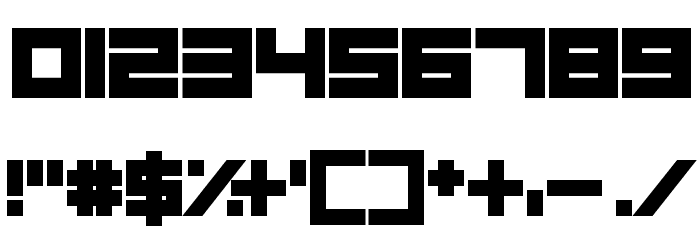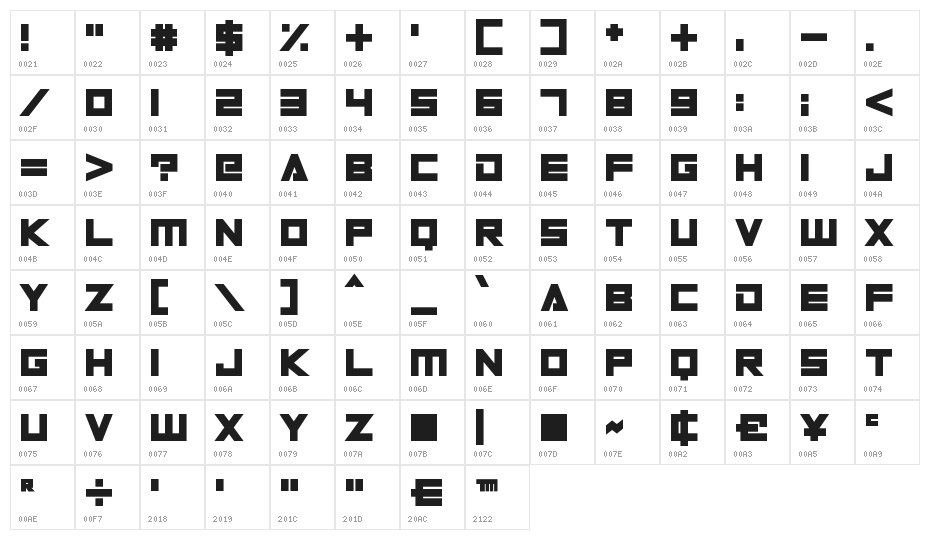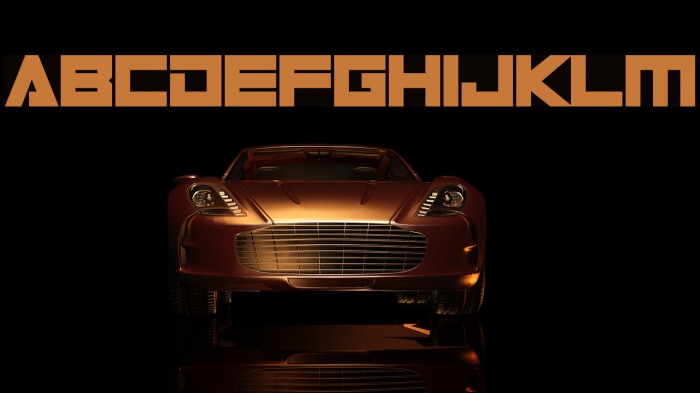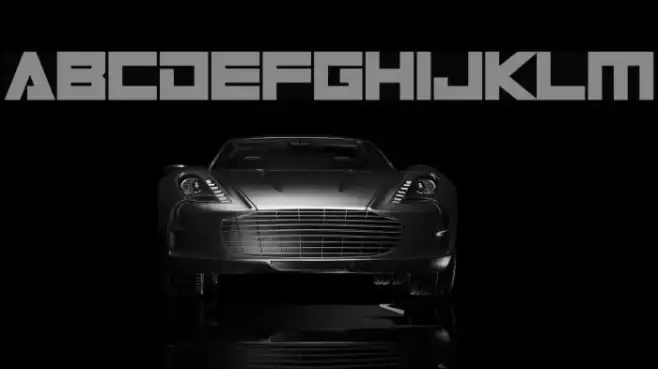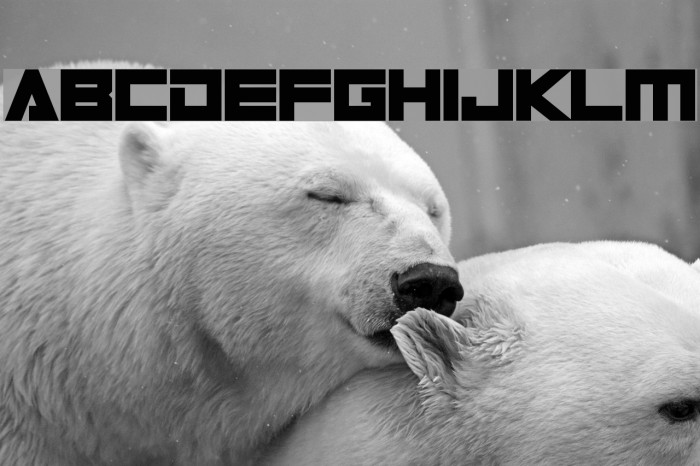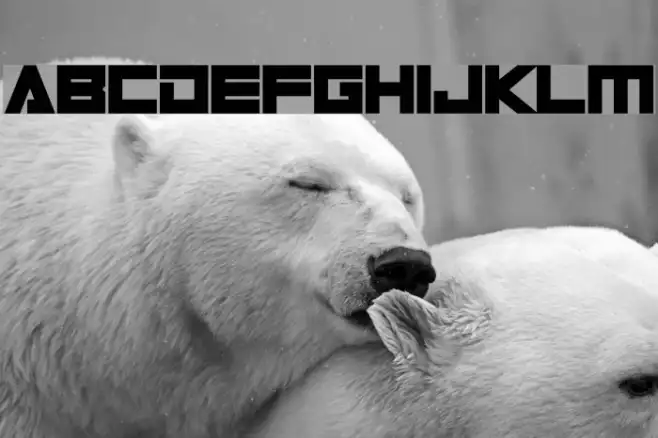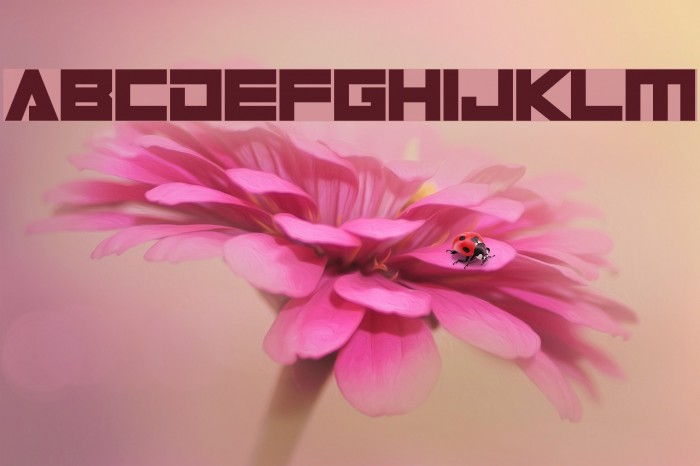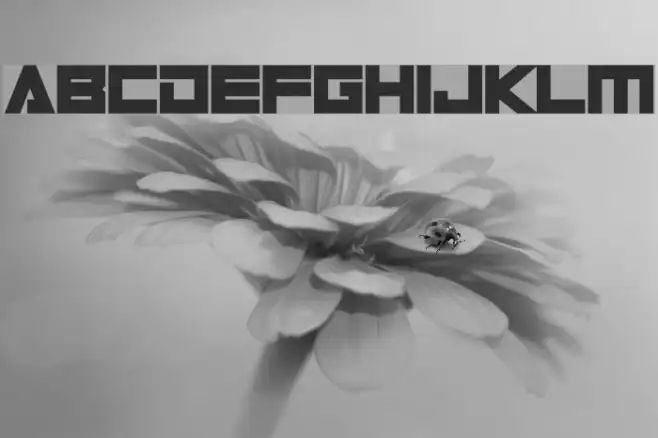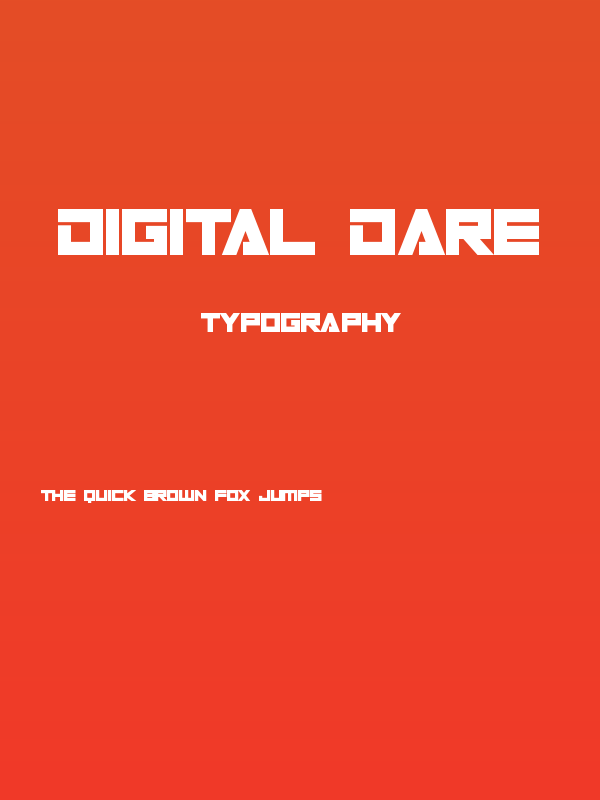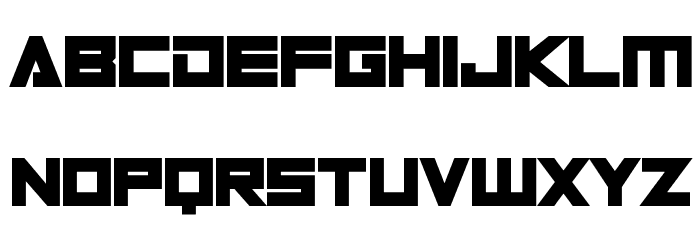
Digital Dare Font
Digital Dare Description
This font features a bold, geometric design with a futuristic and digital aesthetic. The characters are constructed with sharp angles and straight lines, giving them a blocky, pixelated appearance reminiscent of early digital displays or video game graphics. The uppercase and lowercase letters share a uniform height, contributing to a monospaced feel, although the font is not strictly monospaced. The numerals and special characters maintain the same stylistic approach, ensuring consistency across all glyphs. The overall look is modern and tech-inspired, making it suitable for projects that require a digital or sci-fi theme.
| Proposed Projects | Ideal for video game design, tech branding, digital art projects, and sci-fi themed posters. |